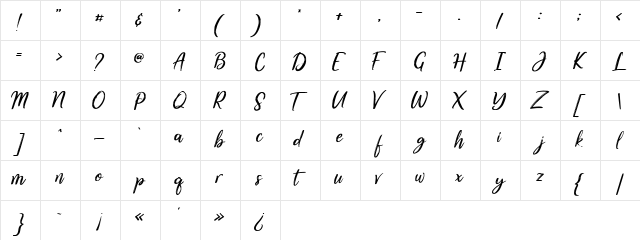
Jenifer Regular
| Foundry | Vilogsign |
| Designer | vilogsign |
Design Context for Jenifer Typeface
Jenifer is a composed and adaptable typeface that performs quietly and consistently across a wide range of design contexts.